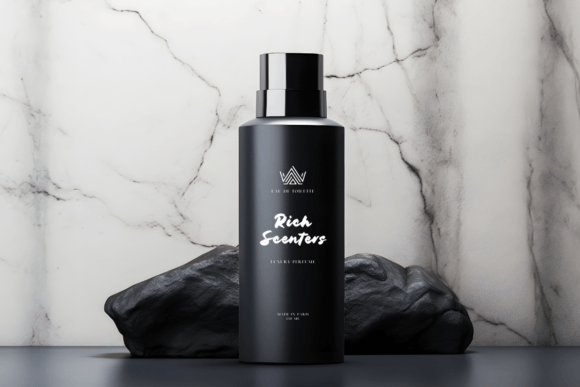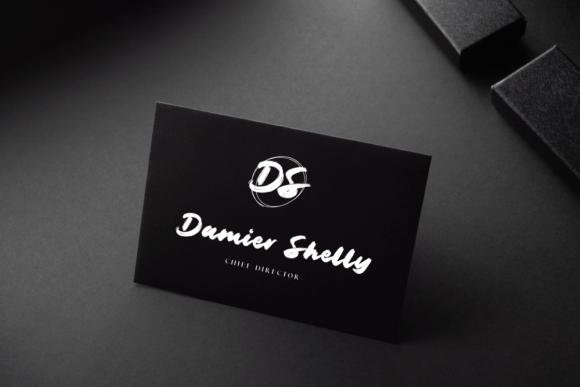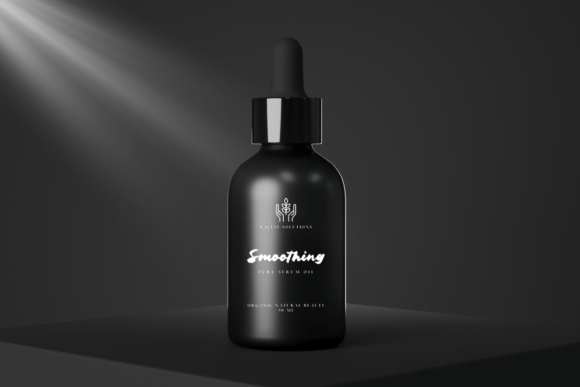
Introduction to Secret Director Font
Introducing Secret Director – Handbrush Bold Script font, where every stroke tells a story of whispered secrets and clandestine adventures.
This font embodies boldness and elegance, with its hand brushed strokes adding a touch of authenticity and warmth to any project Each character carries an air of mystery, inviting the reader to delve deeper into its expressive curves and loops.
Key Features of Secret Director Font